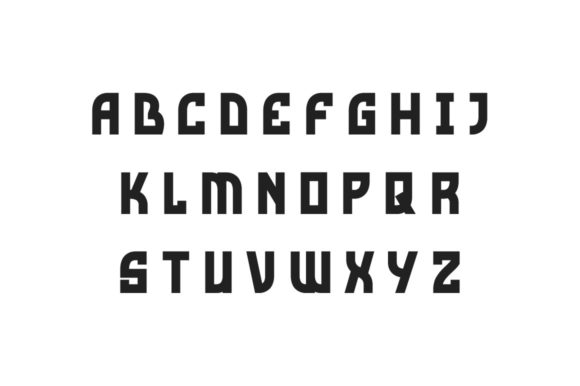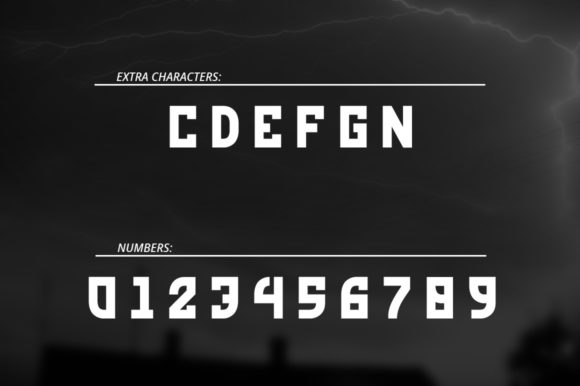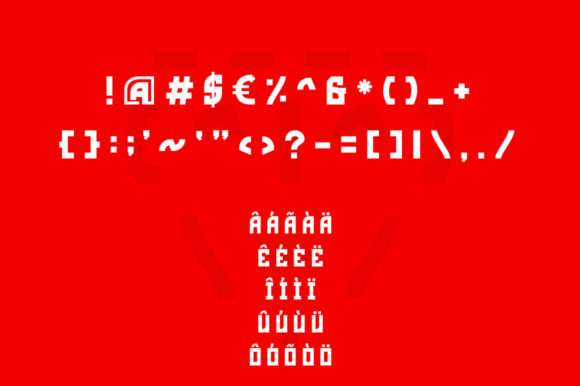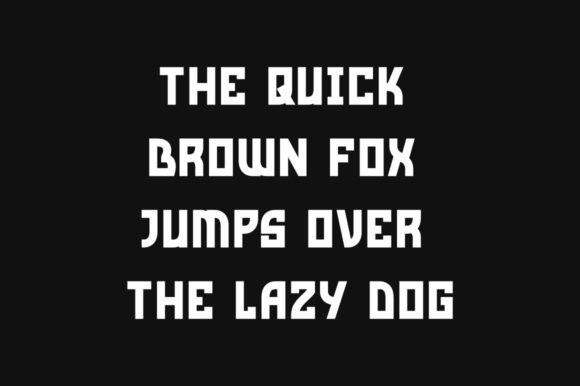
Introduction to Red Storm Font
Have you ever been working on a creative project and suddenly, the perfect font pops into your mind? It’s like a spark of inspiration that brings everything together. For designers, finding the right font can be the difference between a good design and an amazing one. And that’s exactly what the Red Storm Font offers – a game-changing design resource that can elevate any project.
Imagine being able to add a touch of boldness and sophistication to your designs with just a single font. That’s what the Red Storm Font is all about – a cool, bold, and thick lettered display font that’s sure to make a statement. With its high-quality design and transparent background, this font is perfect for designers who want to add a bit of drama to their creative projects.
Key Features of Red Storm Font
- High-quality design resource for creative projects, ideal for those seeking a unique and modern aesthetic.
- Unique characteristics include bold lines, geometric shapes, and a dynamic feel, making it perfect for modern and edgy designs.
Honest Review: Red Storm Font
I recently stumbled upon the Red Storm Font and I must say it’s a great addition to any design resource. This font is perfect for creative projects where you need a bold, eye-catching font.
One of the things that stands out about the Red Storm Font is its high quality and versatility. It’s available for free download, which is a huge plus for designers on a budget. The font has a unique style that’s sure to grab attention and add a touch of sophistication to any design.
Here are some of the things that work well with the Red Storm Font:
- ✨ Bold and eye-catching design
- ✨ High quality and clear font
- ✨ Perfect for creative projects
- ⚠️ Limited customization options
- ⚠️ May not be suitable for all design styles
Overall, I’m really impressed with the Red Storm Font. It’s a great addition to any design resource and I would highly recommend it to fellow designers. Just keep in mind the limitations mentioned above and you’ll be all set to create some amazing designs.
Tips for Getting the Most Out of Red Storm Font
For best results, use the Red Storm Font in conjunction with other high-quality design elements. Experiment with different font sizes, colors, and styles to create a unique and eye-catching design. The Red Storm Font is a versatile design resource that can be used in a variety of creative projects, from logos to brochures.
The Red Storm Font is perfect for a variety of creative projects, including logos, brochures, business cards, and presentations. It’s also great for adding a touch of sophistication to your website or blog. The Red Storm Font is a high-quality design resource that is sure to elevate your design projects.
What is the recommended usage for the Red Storm Font?
The Red Storm Font is designed for a wide range of creative projects, including graphic design, digital art, and typography. It’s perfect for titles, headings, and body text, and its high-quality design makes it an excellent choice for print and digital media. As a design resource, the Red Storm Font is sure to elevate your creative project and provide a professional touch.